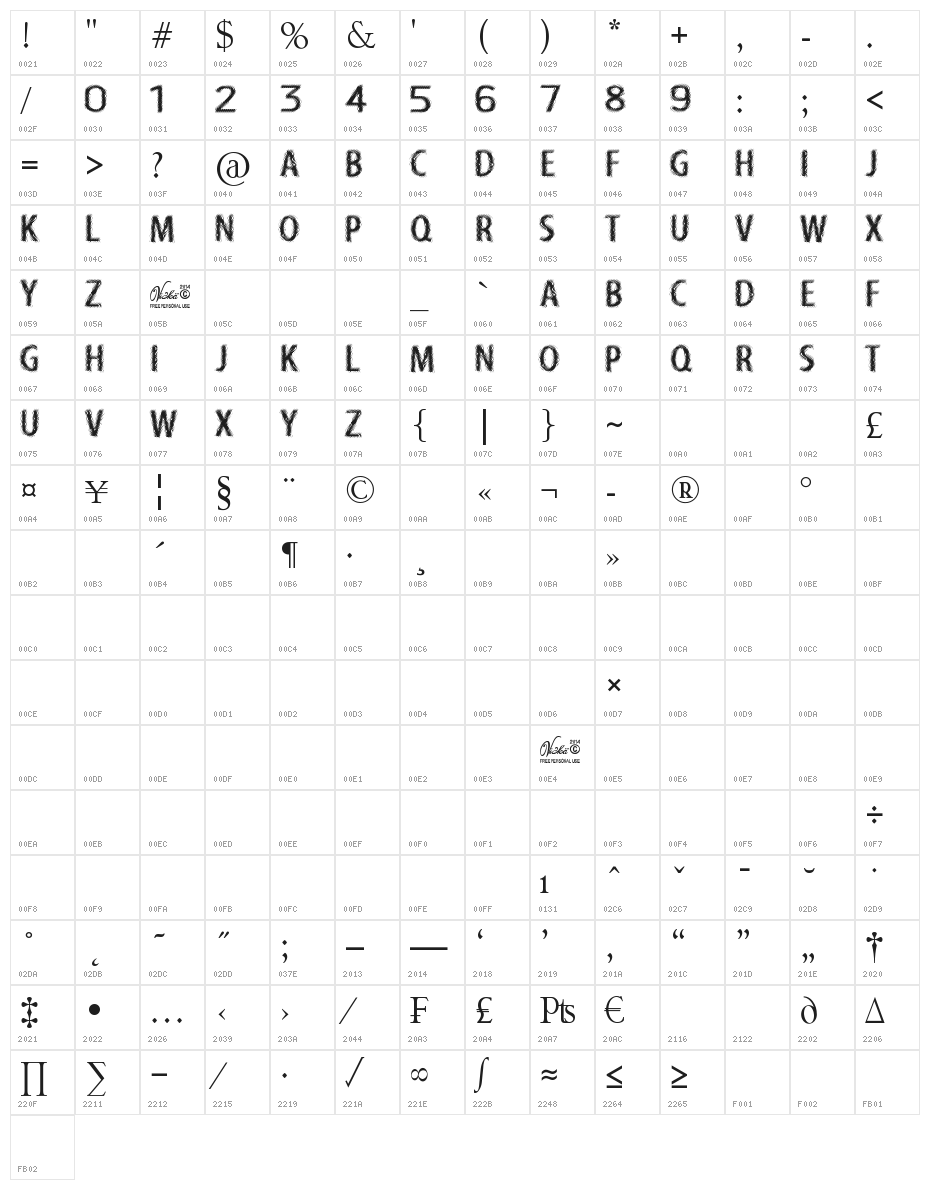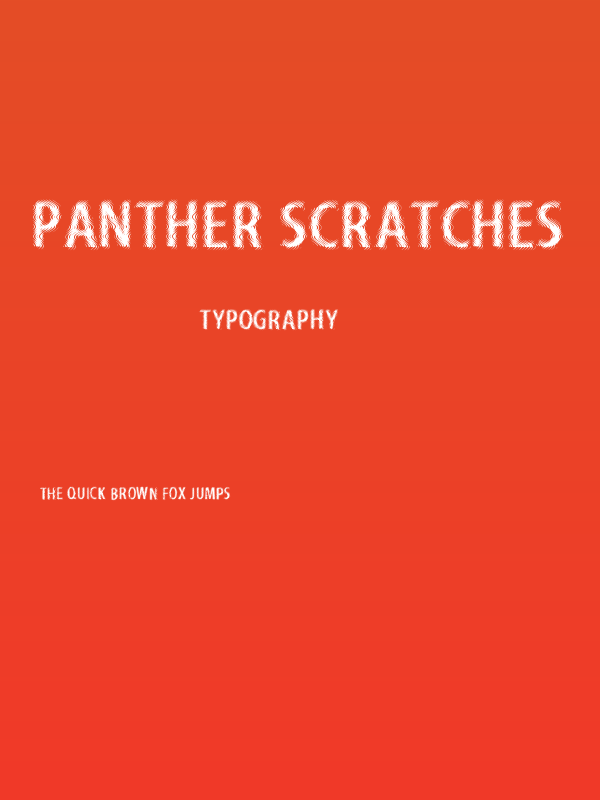
Panther Scratches Font
Panther Scratches Description
This font features a dynamic and edgy design, characterized by its jagged, scratch-like strokes that give it a fierce and energetic appearance. The letters are bold and impactful, with a unique texture that resembles claw marks or scratches, creating a sense of movement and intensity. The uppercase and lowercase letters maintain a consistent style, while the numbers and special characters complement the overall aesthetic. This font is ideal for projects that require a bold statement or a touch of wildness, making it perfect for creative and adventurous designs.
| Proposed Projects | Ideal for branding, posters, album covers, sports team logos, and any project needing a bold, adventurous look. |